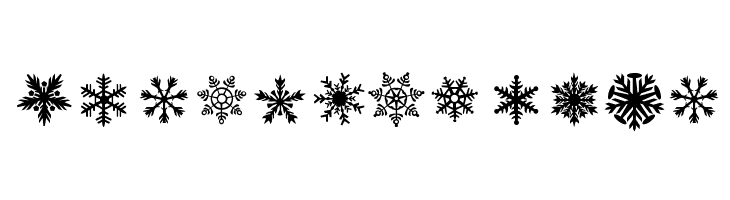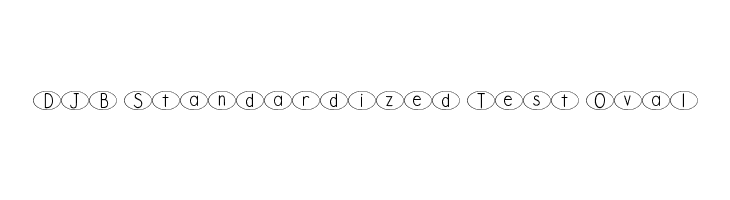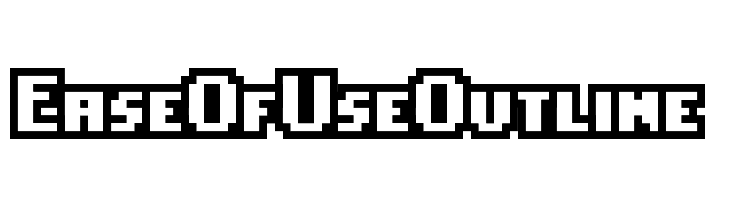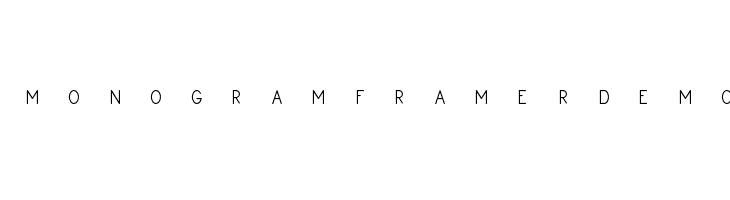
A clean, handwritten-style font with rounded edges and consistent strokes.
A whimsical, handwritten font with playful curls and decorative elements.
A decorative font featuring diverse fleur-de-lis symbols with intricate designs.
A playful sans-serif font with characters enclosed in circles, ideal for creative projects.
A playful font with characters enclosed in ovals, offering a clean and modern look.
A decorative snowflake dingbat set with diverse, intricate designs.
A set of transportation and navigation icons enclosed in rounded squares.
A clean, minimalist font with thin lines and geometric influence.
A clean, geometric font with a modern and minimalist design.
A bold, pixelated font with an outlined, retro digital style.